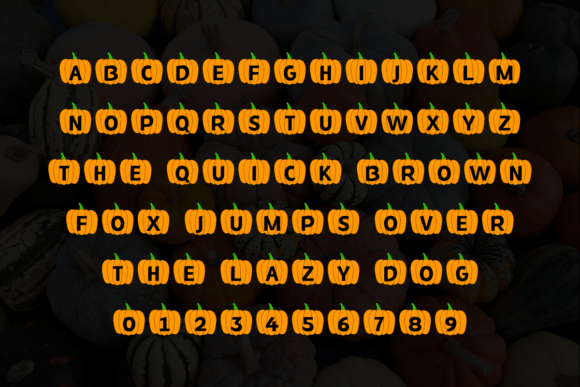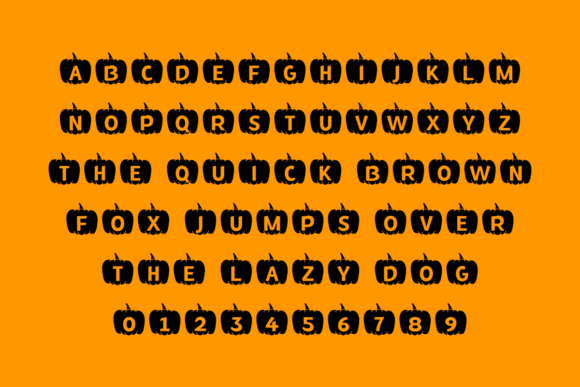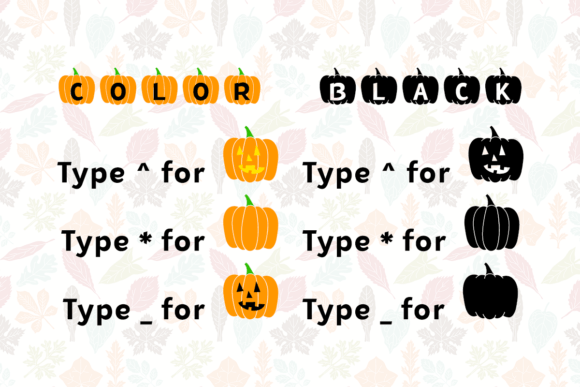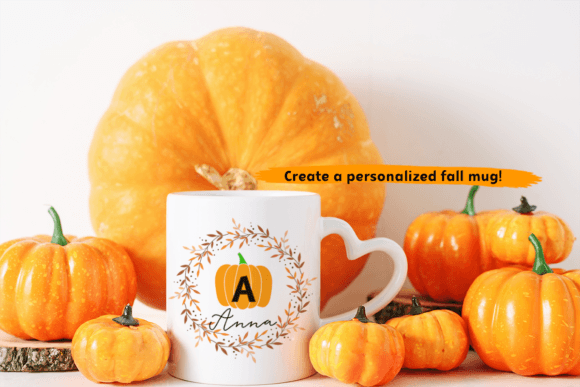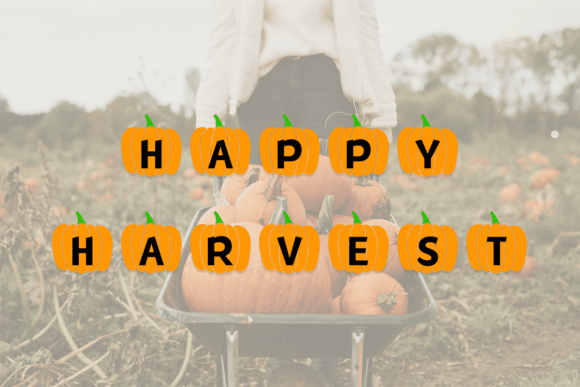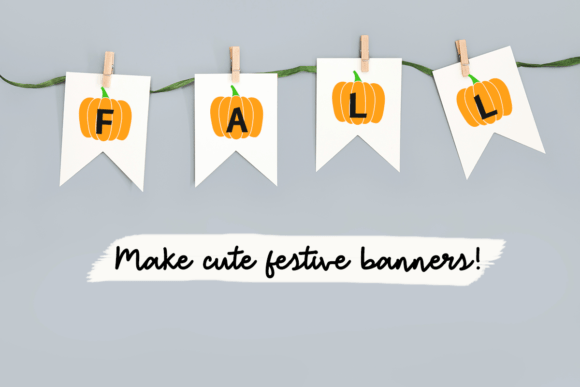
Fall Pumpkins Font: The Perfect Addition to Your Autumn Projects
As the leaves change colors and the air grows crisper, it’s the perfect time to get creative with your designs and crafts. Introducing the Fall Pumpkins Font, a super festive font that’s sure to add a touch of autumn magic to your projects. In this article, we’ll dive into the features of this amazing font and explore how you can use it to create adorable monogrammed mugs, seasonal banners, sublimation projects, and more!
What is Fall Pumpkins Font?
Fall Pumpkins Font is a specially designed font that’s perfect for Autumn-themed projects. This font is not just any ordinary font – it’s a color font (Opentype-SVG) that comes with both color and black/white versions, as well as a full-color SVG file. This makes it incredibly versatile and easy to use in a variety of design software, including PhotoShop, Illustrator, Silhouette, and Inkscape.
Key Features of Fall Pumpkins Font
- Color and Black/White Versions: The font comes with both color and black/white versions, giving you the flexibility to choose the perfect style for your project.
- Full-Color SVG File: The included SVG file makes it easy to use the font in Cricut and Silhouette machines, allowing you to create stunning cut-out designs.
- Opentype-SVG Font: The font is compatible with a range of design software, including PhotoShop, Illustrator, Silhouette, and Inkscape.
Project Ideas with Fall Pumpkins Font
So, what can you create with Fall Pumpkins Font? The possibilities are endless! Here are a few ideas to get you started:
- Monogrammed Mugs: Add a personal touch to your mugs with cute monogrammed designs using Fall Pumpkins Font.
- Seasonal Banners: Create eye-catching banners for your blog, social media, or home decor with the festive Fall Pumpkins Font.
- Sublimation Projects: Use the font to create stunning sublimation projects, such as customized t-shirts, tote bags, or water bottles.
- Autumn-themed Cards and Invitations: Add a touch of autumn charm to your cards and invitations with Fall Pumpkins Font.
Tips for Using Fall Pumpkins Font
To get the most out of Fall Pumpkins Font, here are a few tips to keep in mind:
- Experiment with Colors: Don’t be afraid to play around with different color combinations to find the perfect look for your project.
- Mix and Match Fonts: Combine Fall Pumpkins Font with other fonts to create unique and eye-catching designs.
- Use the SVG File: Take advantage of the included SVG file to create intricate cut-out designs with your Cricut or Silhouette machine.
Fall Pumpkins Font is the perfect addition to your Autumn projects. With its festive design, versatility, and ease of use, this font is sure to become a staple in your design library. Whether you’re a designer, crafter, or DIY enthusiast, Fall Pumpkins Font is a must-have for creating stunning Autumn-themed designs. So why wait? Get creative with Fall Pumpkins Font today and add a touch of autumn magic to your projects!